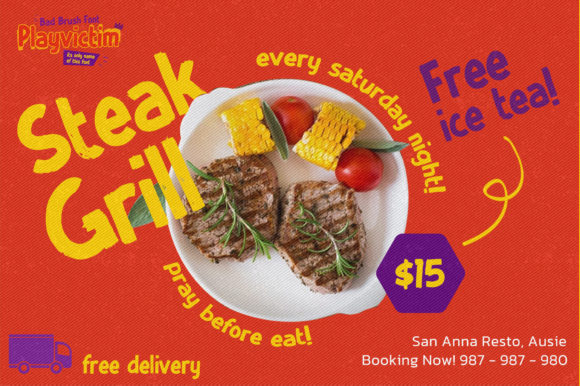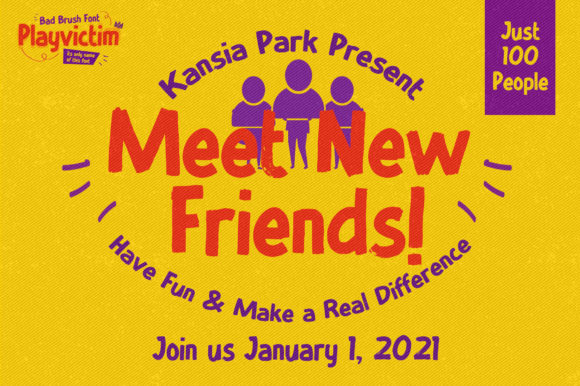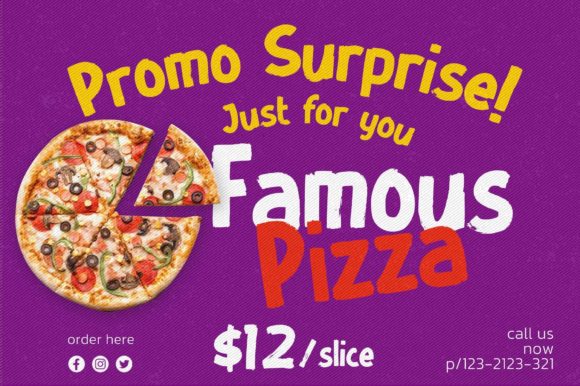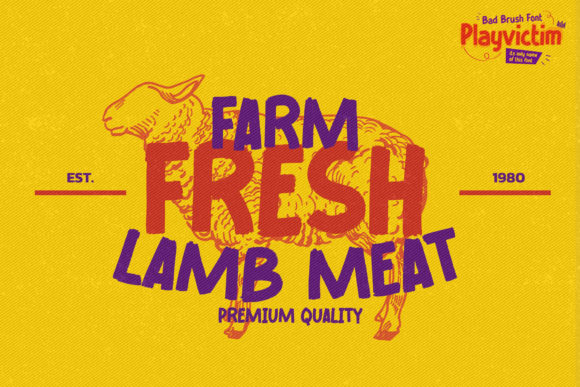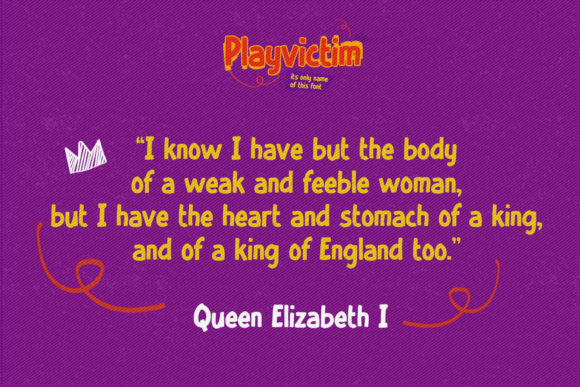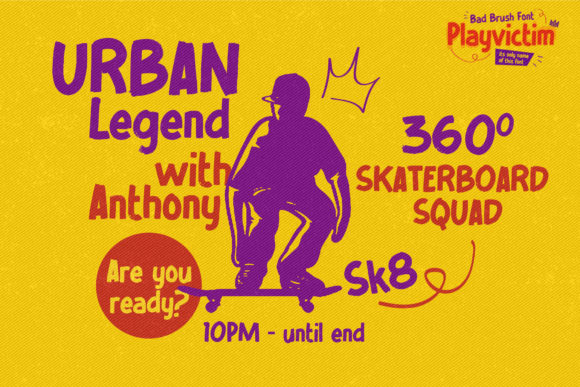
Introduction to Playvictim Font
Have you ever found yourself rummaging through your craft supplies, searching for the perfect font to add a personal touch to your handmade greeting cards? That’s exactly what happened to me last weekend, and I stumbled upon the beautiful Playvictim Font. As soon as I laid eyes on it, I knew I had to share it with fellow creatives and designers.
The Playvictim Font is more than just a pretty face – it’s a high-quality design resource that can elevate any creative project. Its brushed texture and cool aesthetic make it perfect for digital designs, presentations, and even crafting. Whether you’re a seasoned designer or a hobbyist, this font has the potential to become your go-to choice for any occasion.
Key Features of Playvictim Font
- High-quality font design with a unique, playful aesthetic, making it an excellent design resource for creative projects.
- Transparent background, allowing for easy customization and versatility in various design applications.
- Designed with a clear, legible font style, making it suitable for various design applications, including print and digital media.
- Features a clean, modern design with a scalable size range, from 8pt to 200pt, allowing for precise control over font size and resolution.
Honest Review: Playvictim Font
I recently stumbled upon the Playvictim Font, and I must say, it’s been a game-changer for my creative projects. This font has everything I need to elevate my designs and make them stand out.
- ✨ High quality design that’s perfect for modern and edgy projects
- ✨ Transparent background, making it easy to combine with other design elements
- ✨ Great for creating bold headlines and titles
- ⚠️ Limited font styles and weights available, which may not be suitable for every design project
Overall, I’m really impressed with the Playvictim Font. It’s a fantastic design resource that’s perfect for creative projects that require a modern and edgy look. I’ve already used it in several projects, and I’m excited to see how it continues to evolve and improve.
Tips for Getting the Most Out of Playvictim Font
To get the most out of the Playvictim Font, experiment with different font sizes, colors, and combinations. You can also use it in conjunction with other design elements to create unique and eye-catching designs.
The Playvictim Font is perfect for creating logos, branding materials, social media graphics, and other design projects where a high-quality, unique font is required.